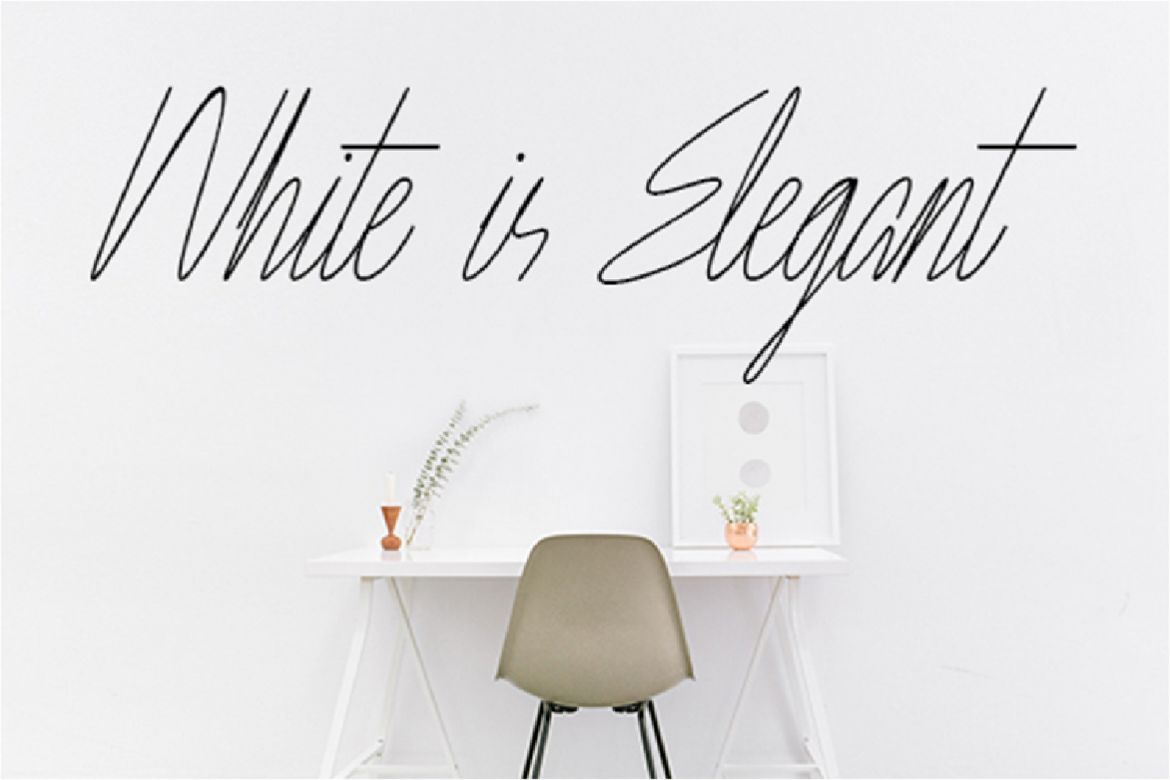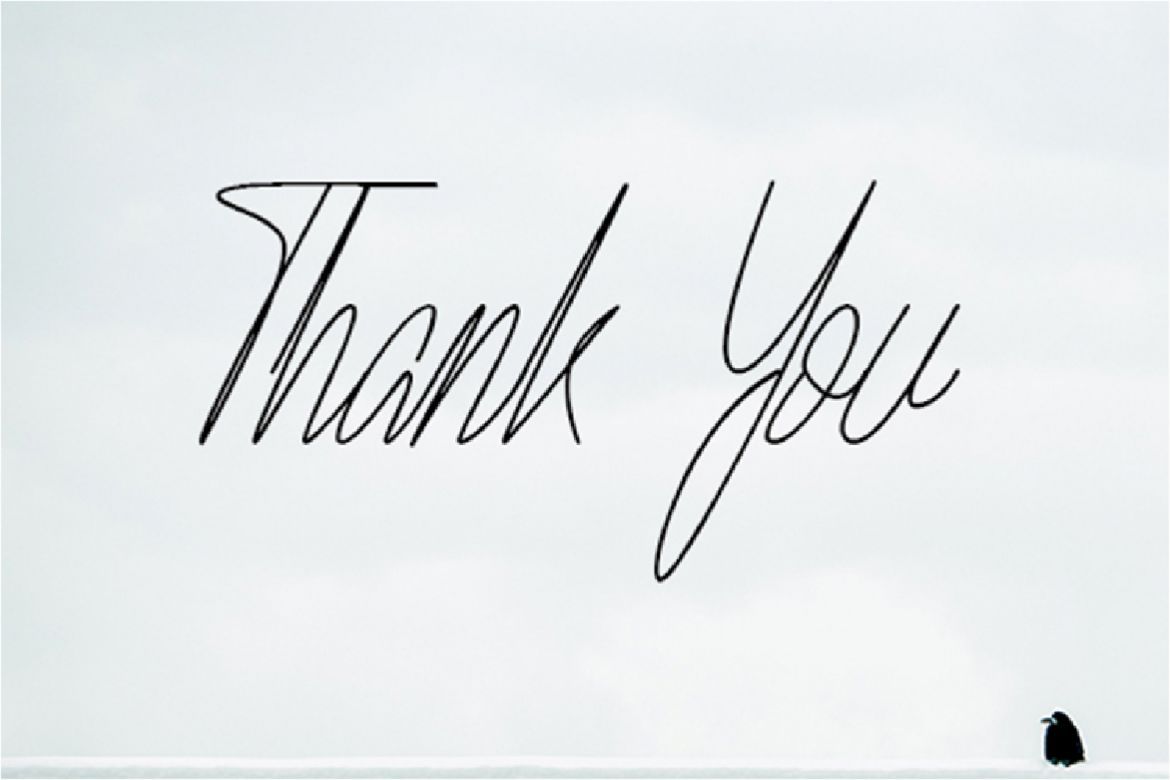
Town Hill - Handwritten Font
Town Hill is handwritten font. Town Hill is perfect for your all design project or other business such as wedding design, invitation, calligraphy, lettering, logo name, etc.